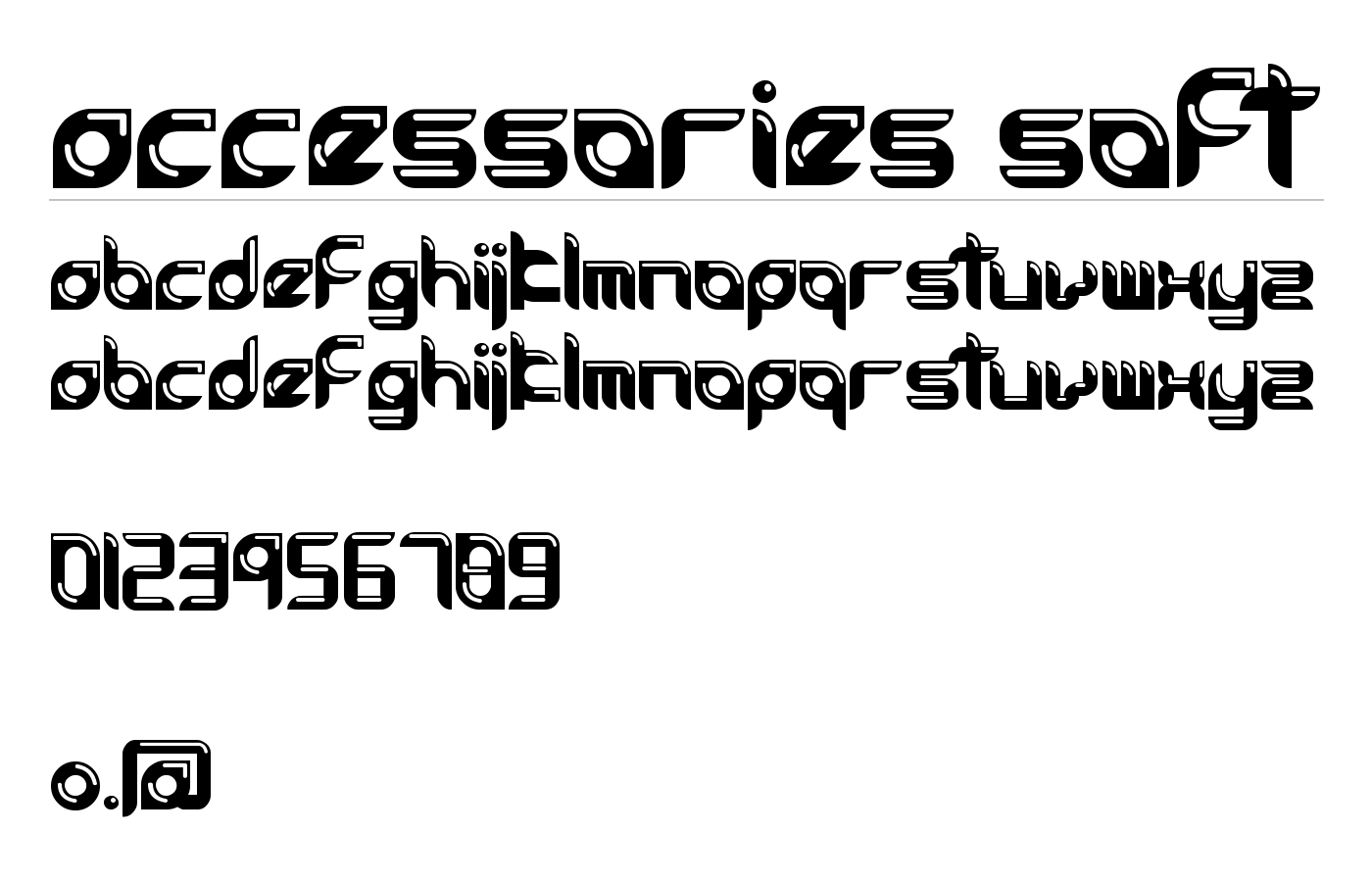
Accessories Soft is a bold, modern sans serif font with a unique, futuristic design characterized by rounded corners and discrete geometric cutouts. Its high contrast shapes and clean, soft curves give it a playful yet tech-savvy personality, making it perfect for innovative branding, creative headlines, and packaging that want to stand out with a contemporary edge. This font works well where a distinct, eye-catching style is needed without sacrificing readability.
accessories soft Font